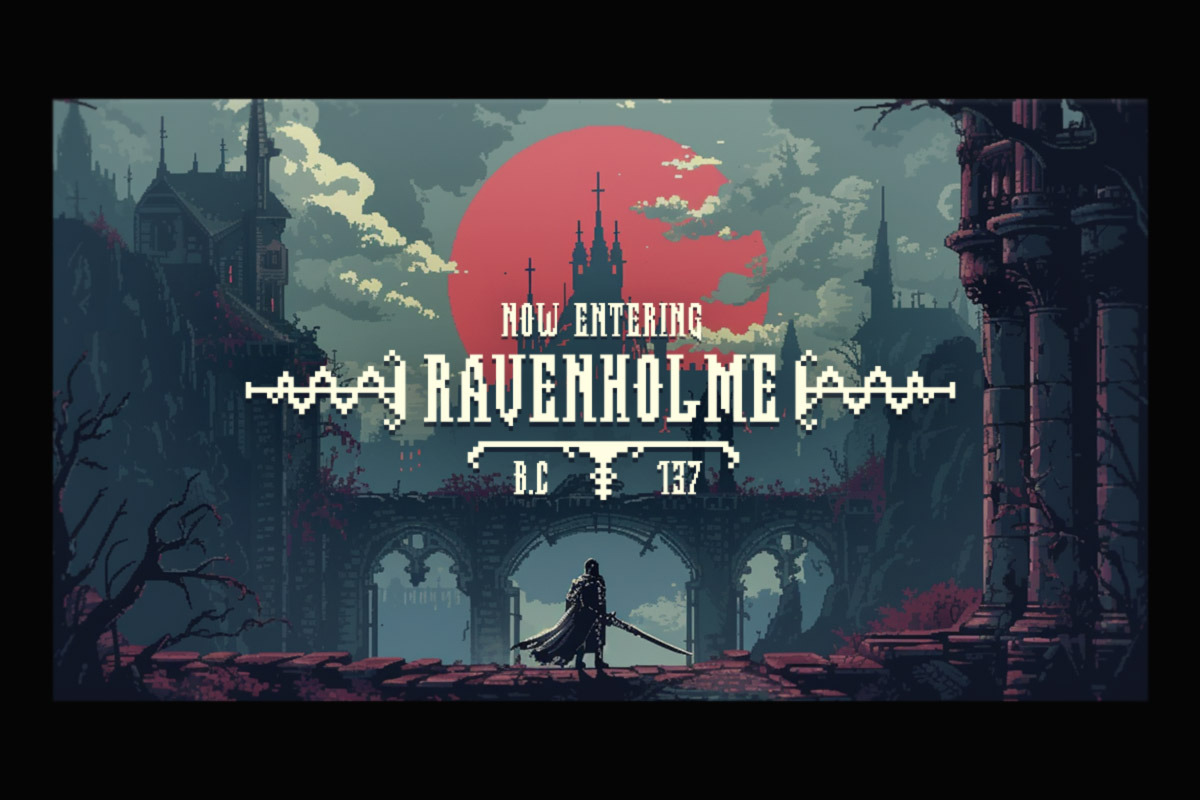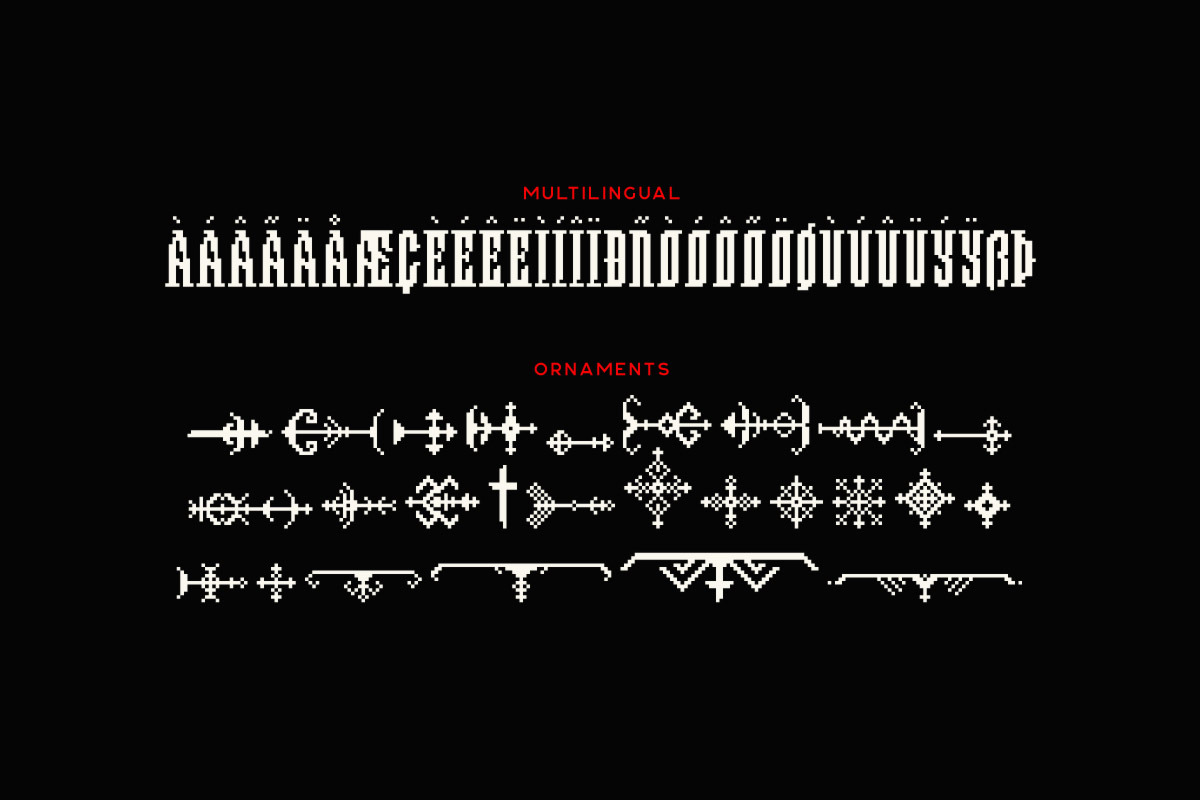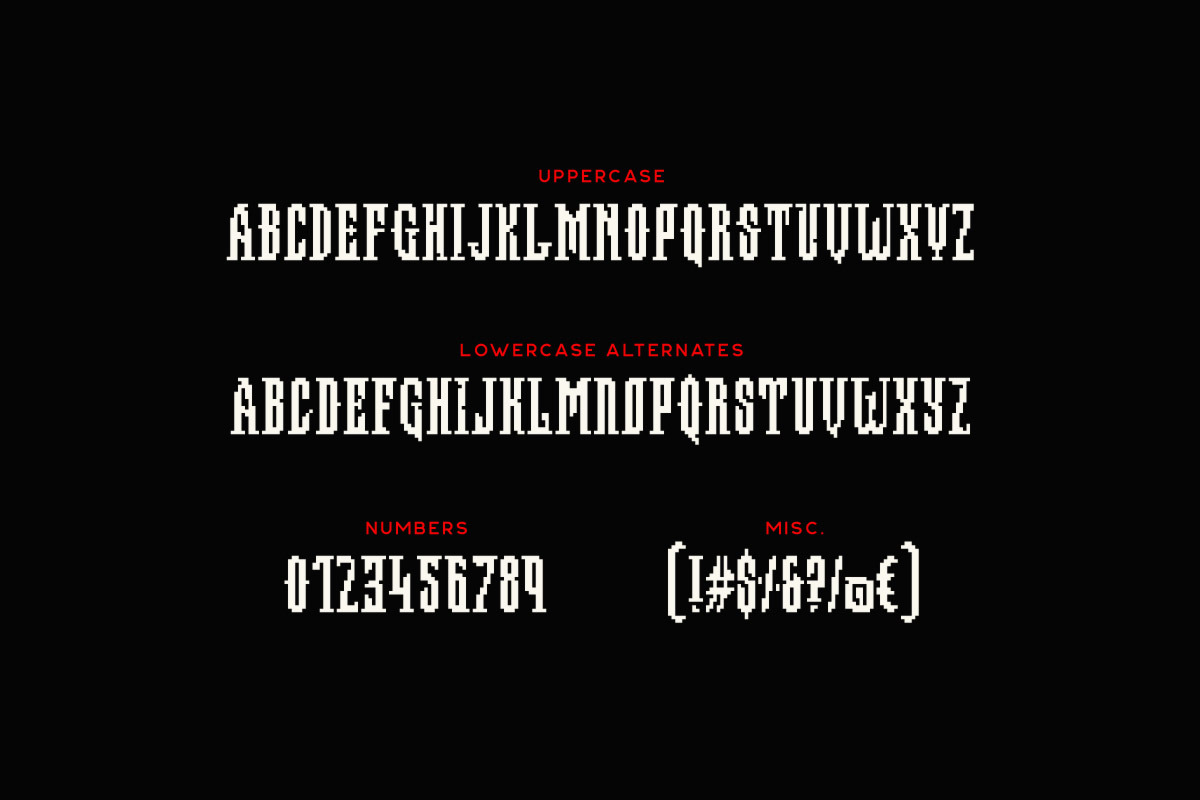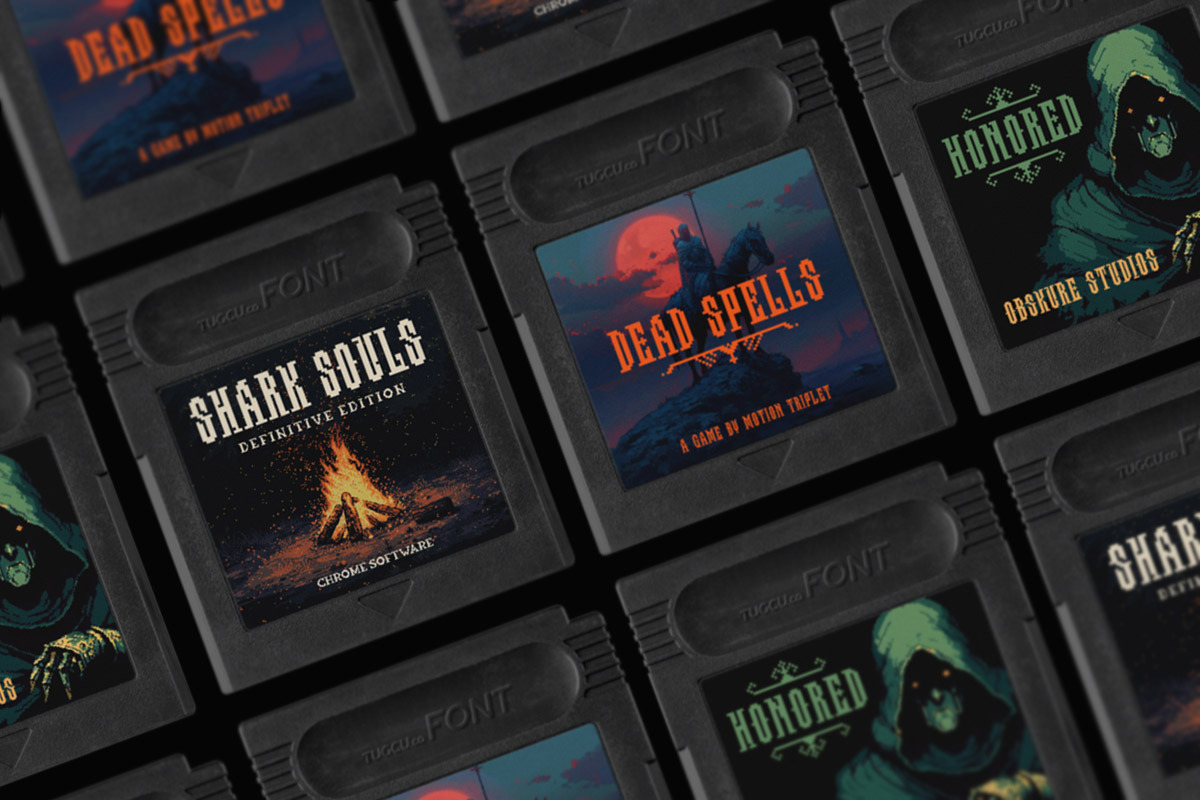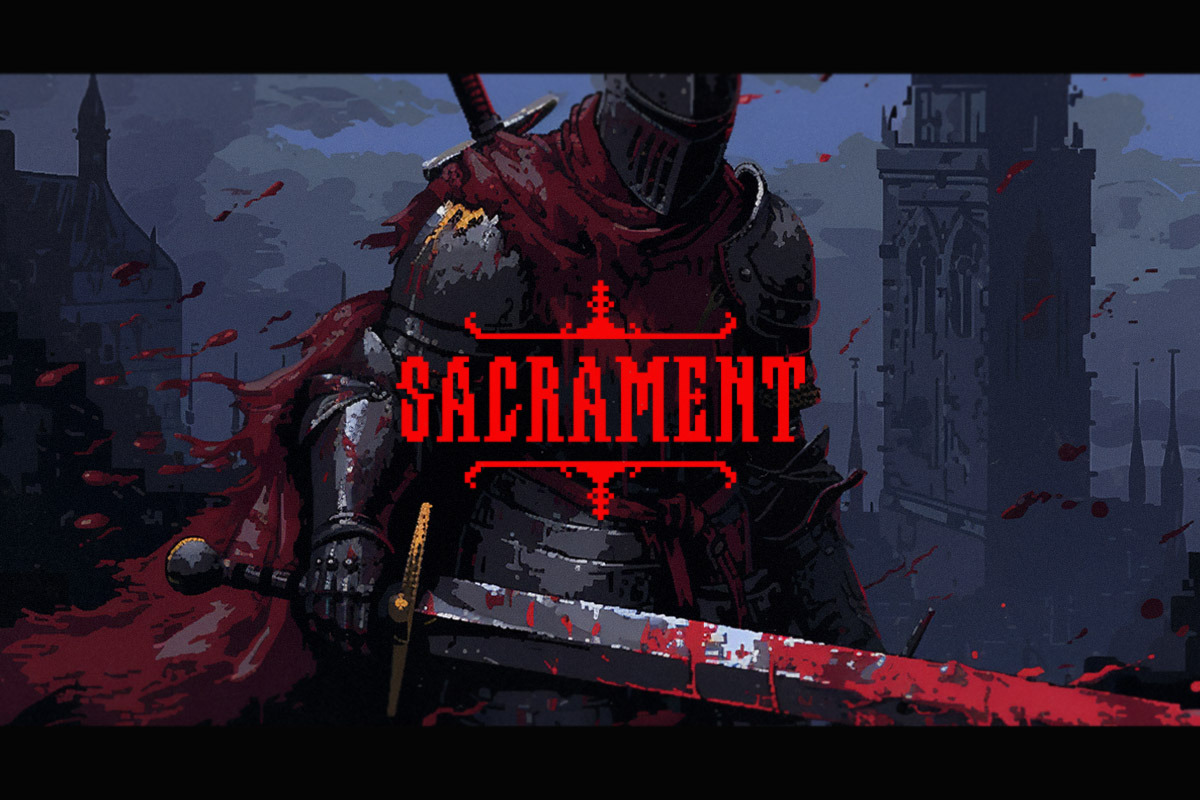
Sacrament - Pixel Font
Sacrament is a medieval pixel font with alternate letters that can be toggled via Caps Lock. The family also includes an ornamental version to complement the font.